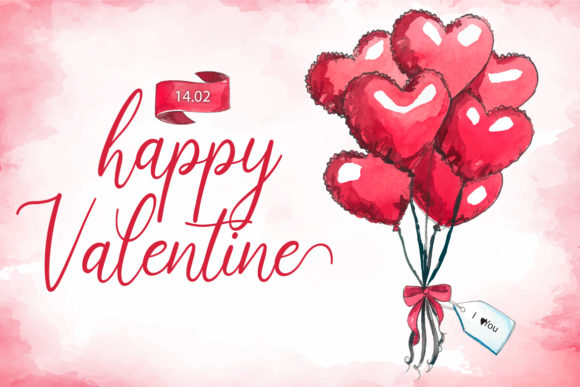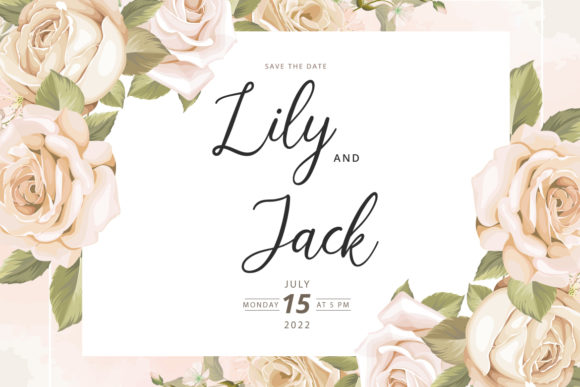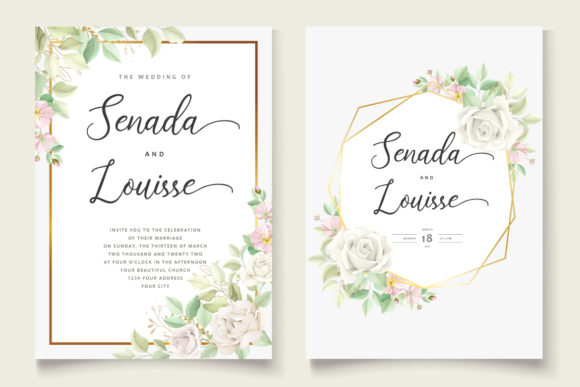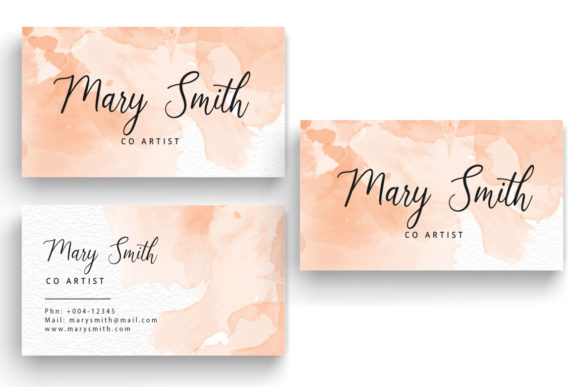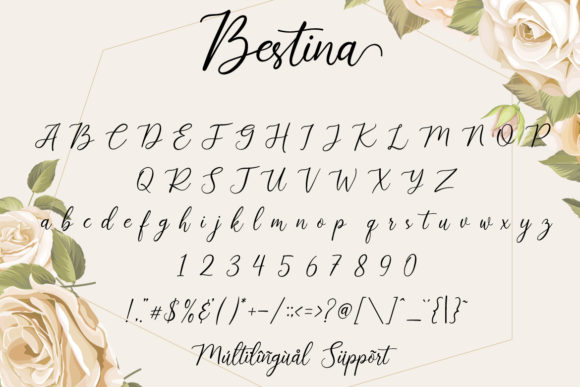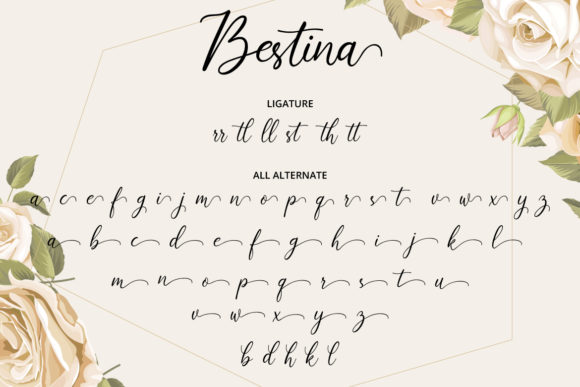
Discover the Elegance of Bestina Font: A Delicate Handwritten Marvel
In the vast and ever-evolving world of typography, finding the perfect font that captures the essence of your design can be a daunting task. However, for those in search of elegance, delicacy, and a touch of sophistication, Bestina Font emerges as a shining star. This beautifully crafted handwritten font is not just a typeface; it’s an experience that can elevate your designs to new heights. In this article, we’ll dive deep into the features of Bestina Font and explore why it has become a favorite among designers and crafters alike.
The Essence of Bestina Font
Bestina Font is a delicate, elegant, and flowing handwritten font that exudes a sense of refinement and luxury. Its design is characterized by beautiful and well-balanced characters, making it incredibly versatile. Whether you’re working on a branding project, a wedding invitation, a fashion blog, or any other design that requires a touch of elegance, Bestina Font proves to be an excellent choice. Its varying baseline, smooth lines, and gorgeous glyphs contribute to its unique charm, allowing it to match a wide pool of designs seamlessly.
Key Features of Bestina Font
- Varying Baseline: The font’s varying baseline adds a natural, handwritten feel to your text, making it more approachable and personal.
- Smooth Lines: Bestina’s smooth lines ensure that your text looks sleek and professional, perfect for designs that require a high level of sophistication.
- Gorgeous Glyphs: With an impressive range of glyphs, Bestina Font offers designers the flexibility to create unique and captivating text. These glyphs can be used to add a personal touch to your designs.
- Stunning Alternates: The font comes with stunning alternates, providing you with multiple options for each letter. This feature allows for greater creativity and customization in your designs.
Why Designers and Crafters Love Bestina Font
Bestina Font has quickly become a favorite among designers and crafters for several reasons:
- Versatility: Its elegant and flowing design makes it suitable for a wide range of projects, from digital content to print materials.
- Ease of Use: Bestina Font is easy to read and works well in both large and small sizes, making it perfect for body text or headings.
- Emotional Connection: The font’s delicate and elegant nature can evoke a sense of luxury, sophistication, and romance, helping designers to create an emotional connection with their audience.
- Support for Multiple Languages: Bestina Font supports multiple languages, making it a great choice for global brands and projects.
How to Use Bestina Font in Your Designs
Incorporating Bestina Font into your designs is straightforward. Here are a few tips to make the most out of this beautiful font:
- Pair it with Other Fonts: Bestina Font works well when paired with other fonts, especially sans-serif fonts. Experiment with different combinations to find the perfect balance for your design.
- Adjust Letter Spacing: Adjusting the letter spacing can enhance the readability of your text and make it more visually appealing.
- Utilize Alternates and Glyphs: Don’t hesitate to experiment with the alternates and glyphs offered by Bestina Font. These elements can add a unique touch to your designs.
Bestina Font is a delicate, elegant, and flowing handwritten font that offers a unique blend of sophistication and charm. Its versatility, ease of use, and range of features make it an excellent choice for designers and crafters looking to elevate their designs. Whether you’re working on a luxury brand project, a wedding invitation, or a personal blog, Bestina Font can help you achieve your design goals with style and elegance.
So, if you’re on the hunt for a font that can add a touch of refinement and luxury to your designs, look no further than Bestina Font. With its beautiful characters, smooth lines, and stunning alternates, it’s sure to become your go-to choice for all your typography needs.